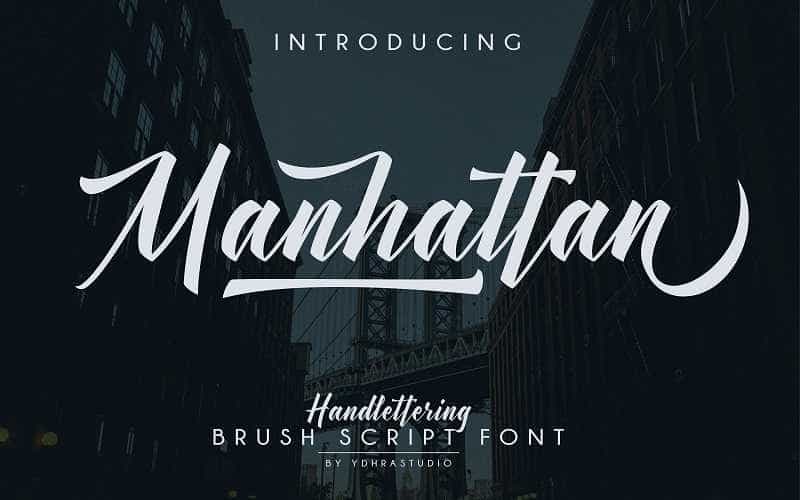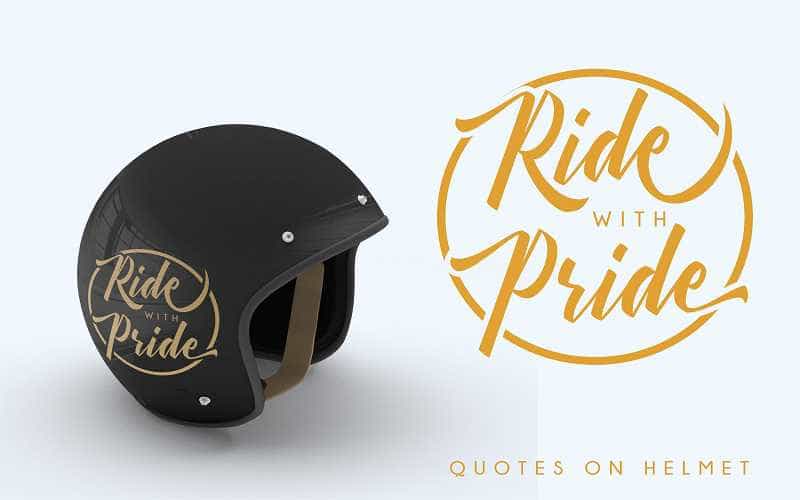
Hi Designer! Do You Want to Find the Best Fancy Brush Calligraphy Fonts to Increase Your Options in Fonts? Well here it is – Manhattan is one of the modern script fonts that belong to the handlettering brush lettering type of font created by YdhraStudio! Long lasting fresh scent can be achieved by using the above combined with washed to produce maximum results. It also has the feature Multiple Language Support!